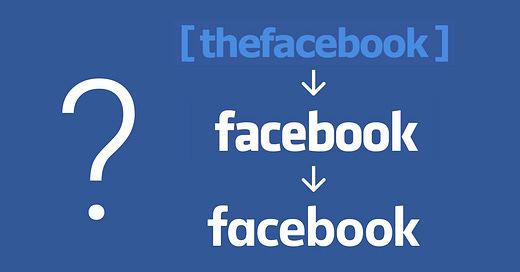
F is for Friends: The Branding Design of Facebook, Part 1
Rebranding Time: 2015
Rebranding Reason: needing a quick refresh but retains its original flavor.
Over the years Facebook has gone through several rebranding to spiff off its image. In this post, we’ll take an inside look at how Facebook tried to rebrand itself in the first twelve years after officially naming itself "the Facebook."
img: The evolution of the Facebook logotype
The Context for Rebranding
A lot has happened to Facebook in its first twelve years.
From its birth in 2003 as “FaceMesh” to 2015, Facebook bought Instagram, IPO’ed, and became a network with more than a billion users. The platform is becoming more and more scrutinized for its collection of data, ads, user privacy issues, the authenticity of the information. Facebook needed an update with the public.
What Was Facebook’s Previous Branding Design?
After it had changed its official name from FaceMesh to “the Facebook” the company adopted this logo:
img: the Facebook original logo
Over the next few years, Facebook grew into a giant network. It drop “the” in the naming and became “Facebook.” It slowly tweaked its logo by making small and incremental changes. Few iterations happened around this time, looking similar to:
img: Facebook made small, subtle tweaks to this logo from 2005-2015.
And then in 2015, a still subtle, but slightly more obvious rebrand happened:
img: Facebook logo rebrand
What’s the Difference Here?
img: logotype difference after the 2015 rebrand
Branding Design Before & After
“a” becoming a single story
“O” became rounder
Bigger counter spaces in letters
More stroke variation, and lighter weight on the rebranded logo
From a Brand Designer’s Perspective
A single-story “a” makes the logo design look more modern and friendly in a sans serif. Its calligraphic counterpart, the double-story “a” is considered a more traditional structure that adds a more serious tone to design.
A more circular “O” can make the design appear friendly.
When counter spaces are bigger, the logo font has more negative spaces. These negative spaces give the branding design more breathing room and make it approachable. The lighter weight also helps with this.
Bigger counter spaces are also more mobile-friendly since the spaces won’t break down on smaller screens.
Stroke variations make the font more humanistic - it reminds the audience of creation by the human hand through calligraphy.
Success?
In my opinion, this rebrand did a good job refreshing the Facebook brand, updating it to be mobile-friendly while retaining its original character. In addition, the custom logo font was optimized for mobile due to increased counter spaces. When the rebrand launched, the difference was small but noticeable, generating additional marketing buzz.